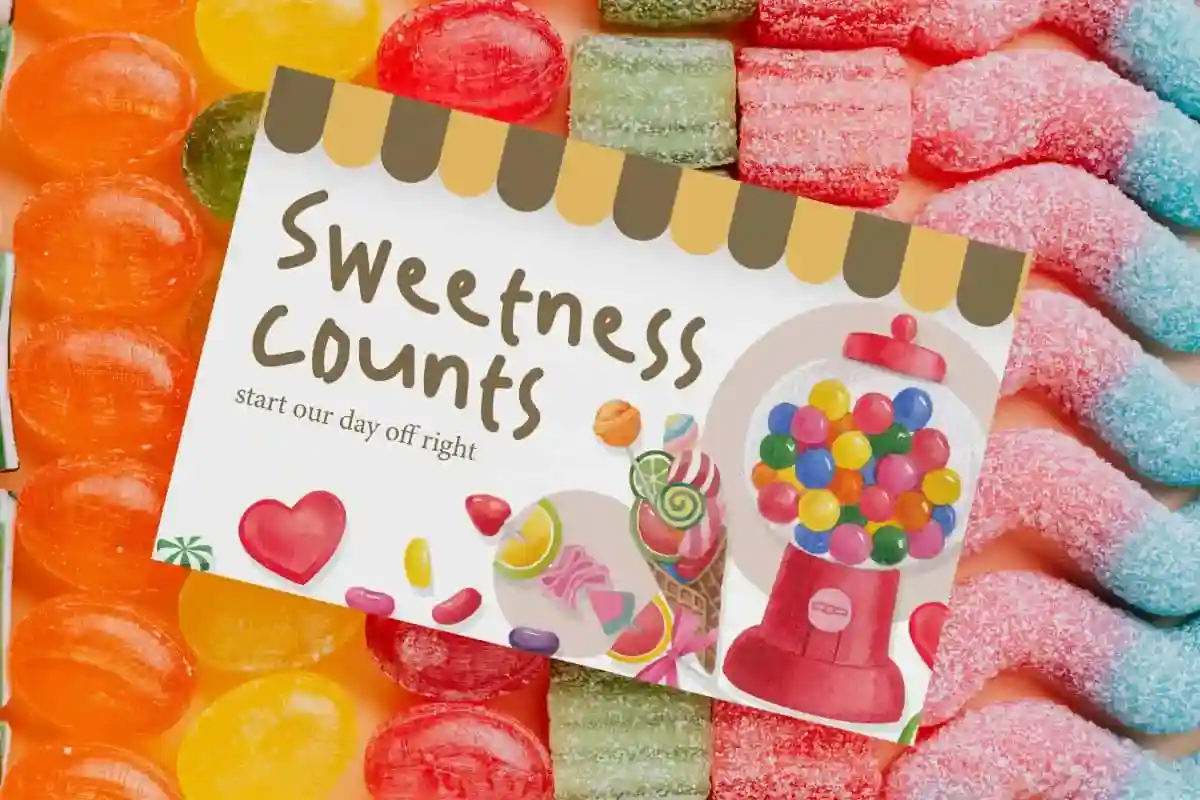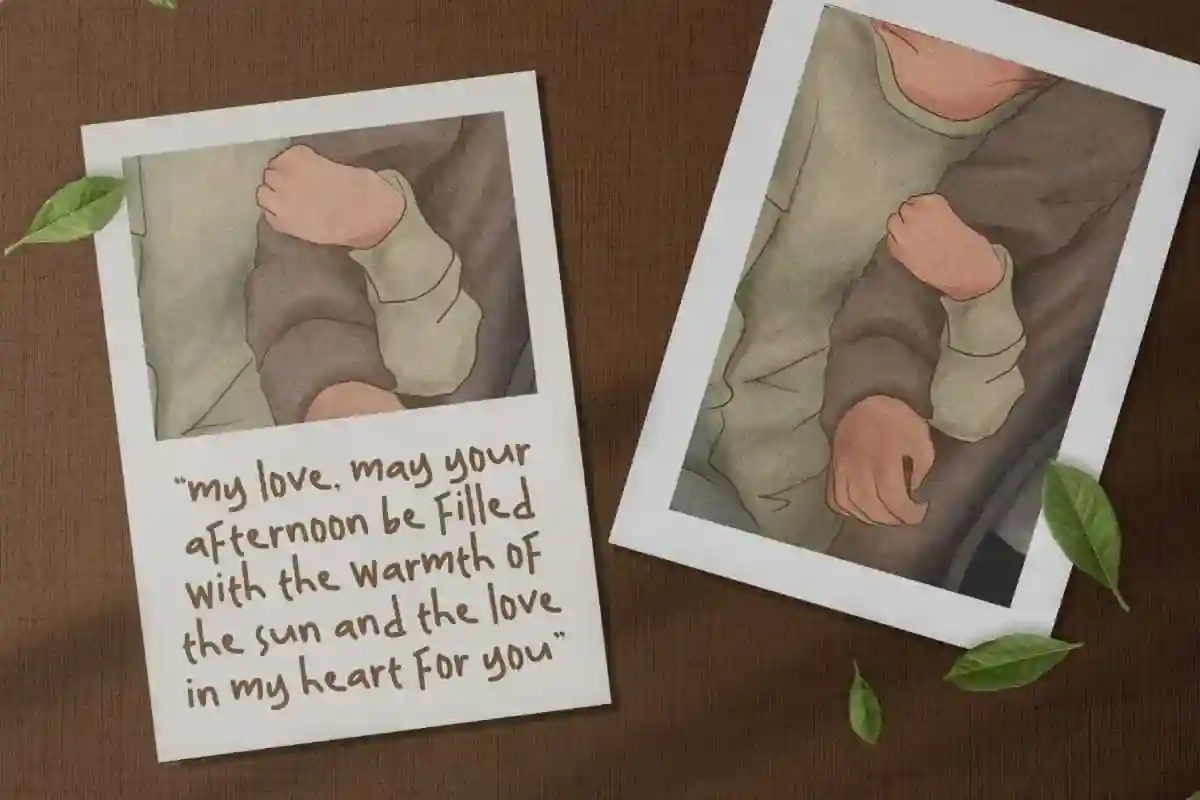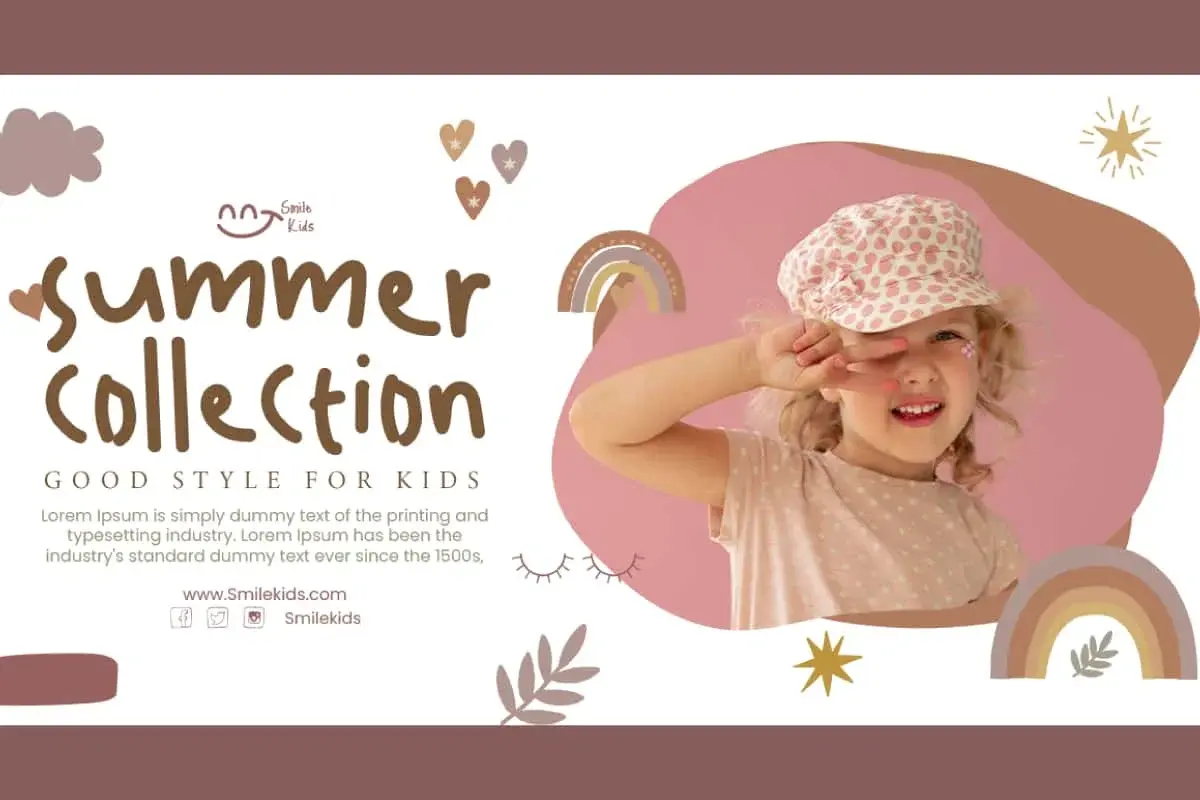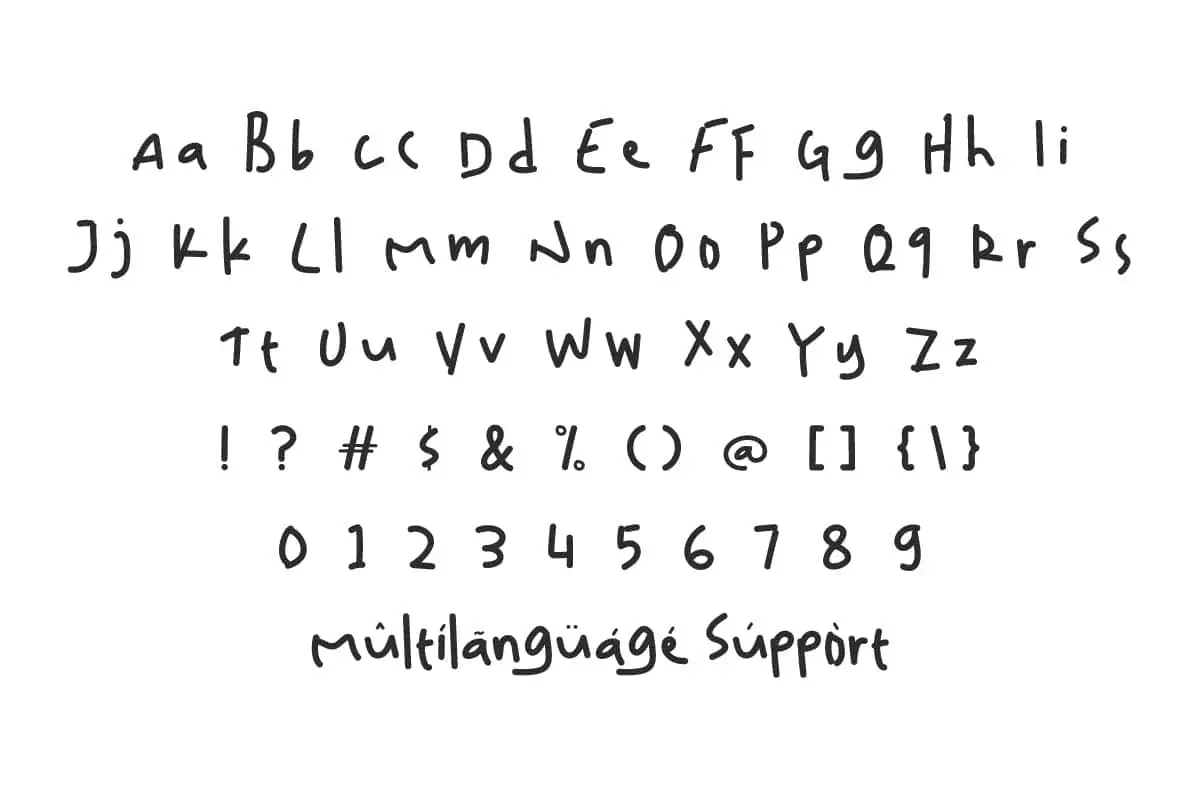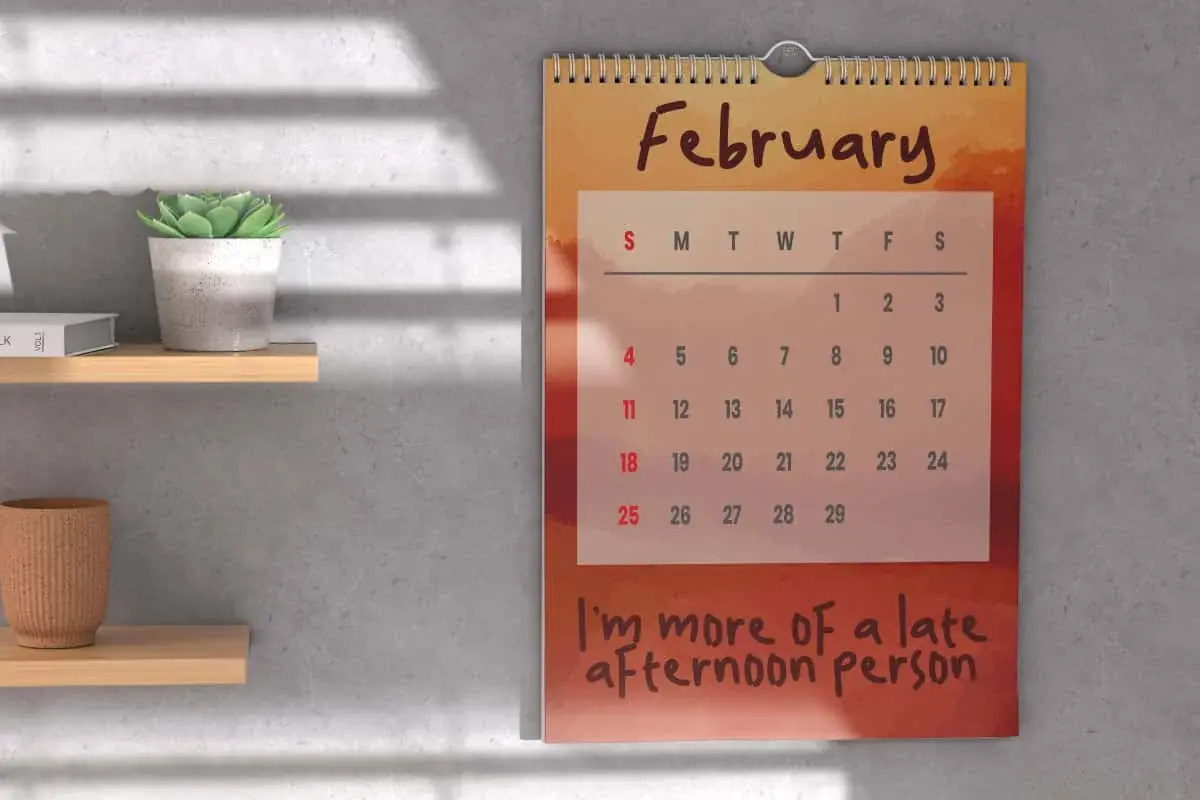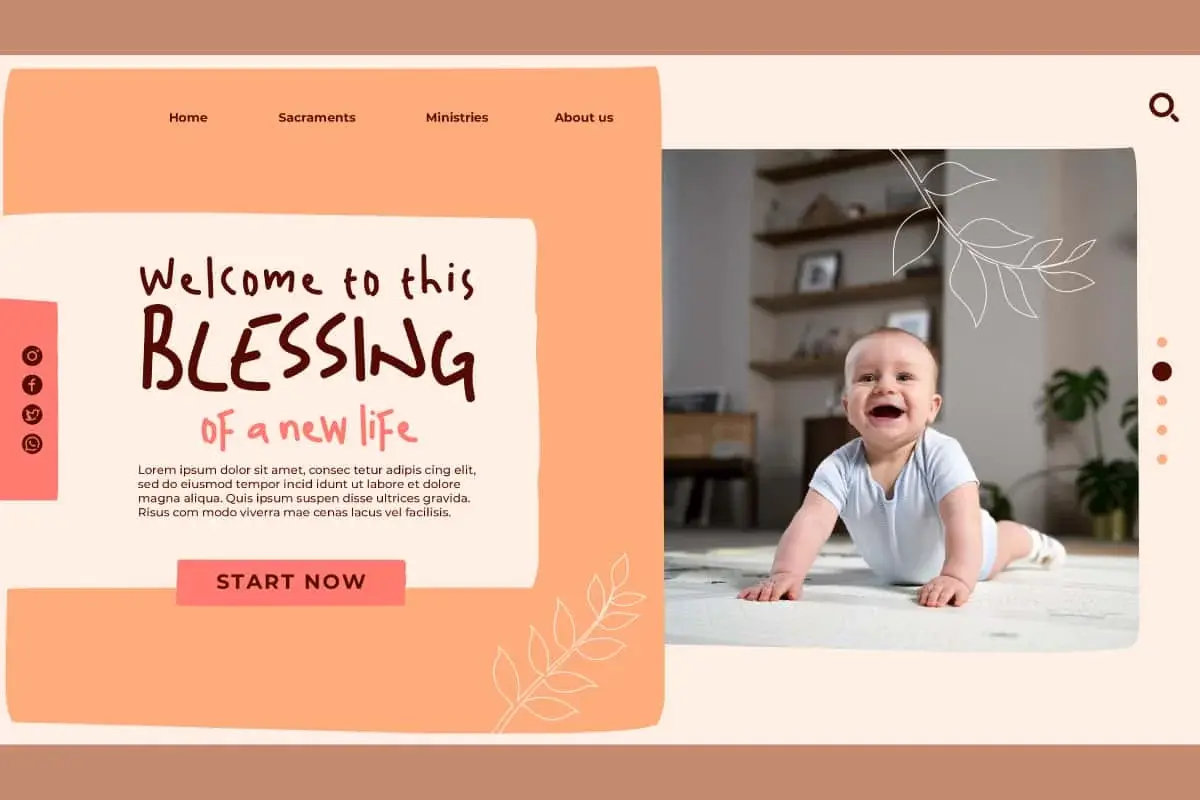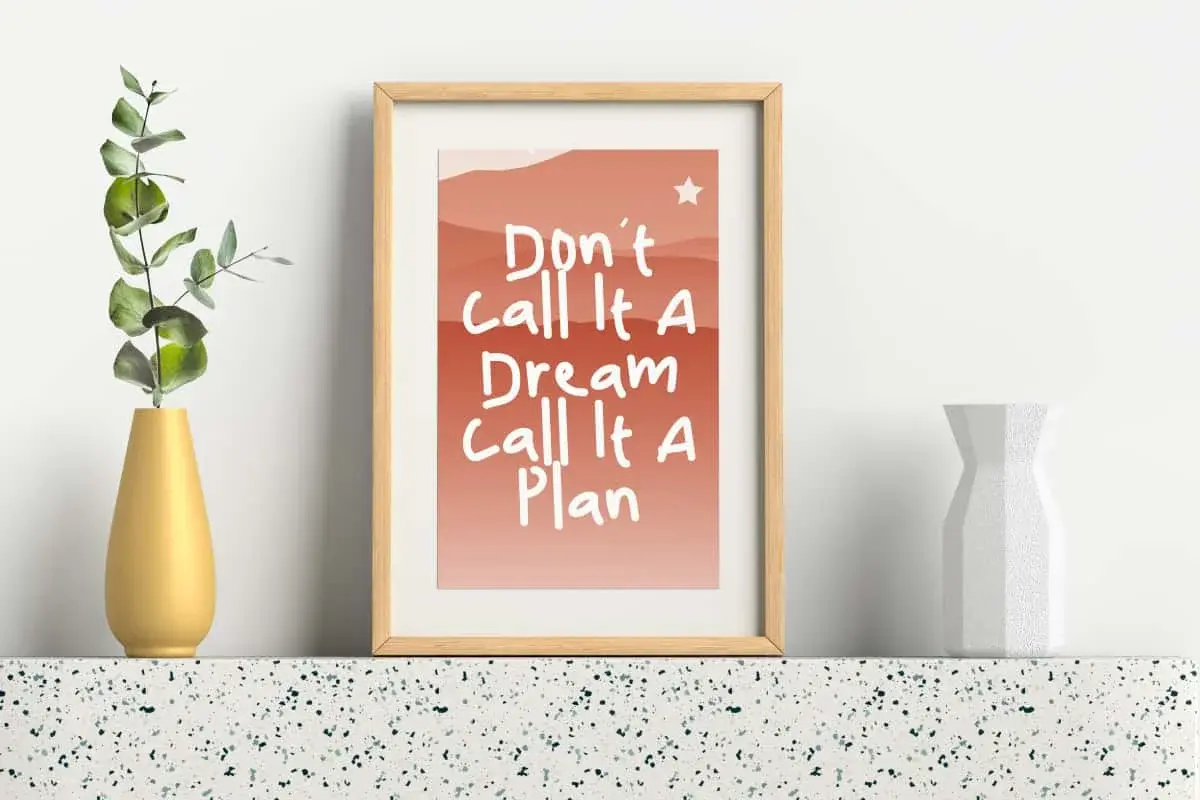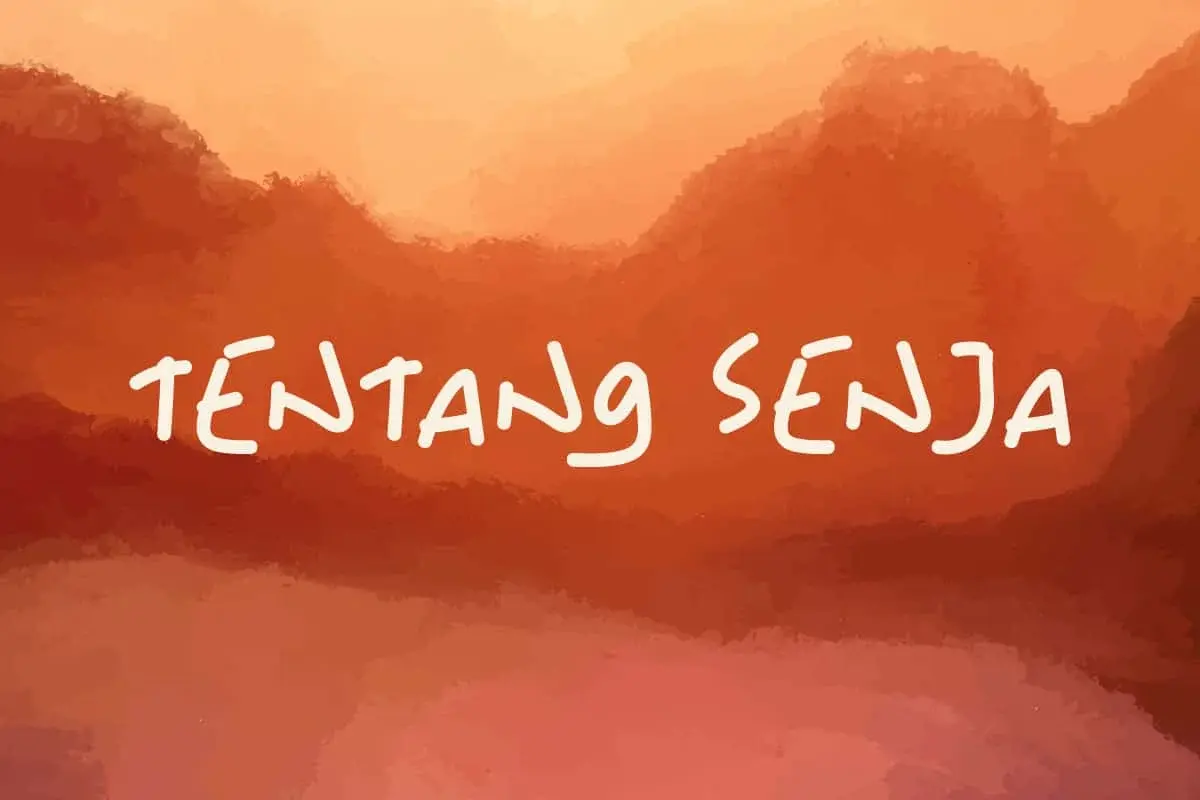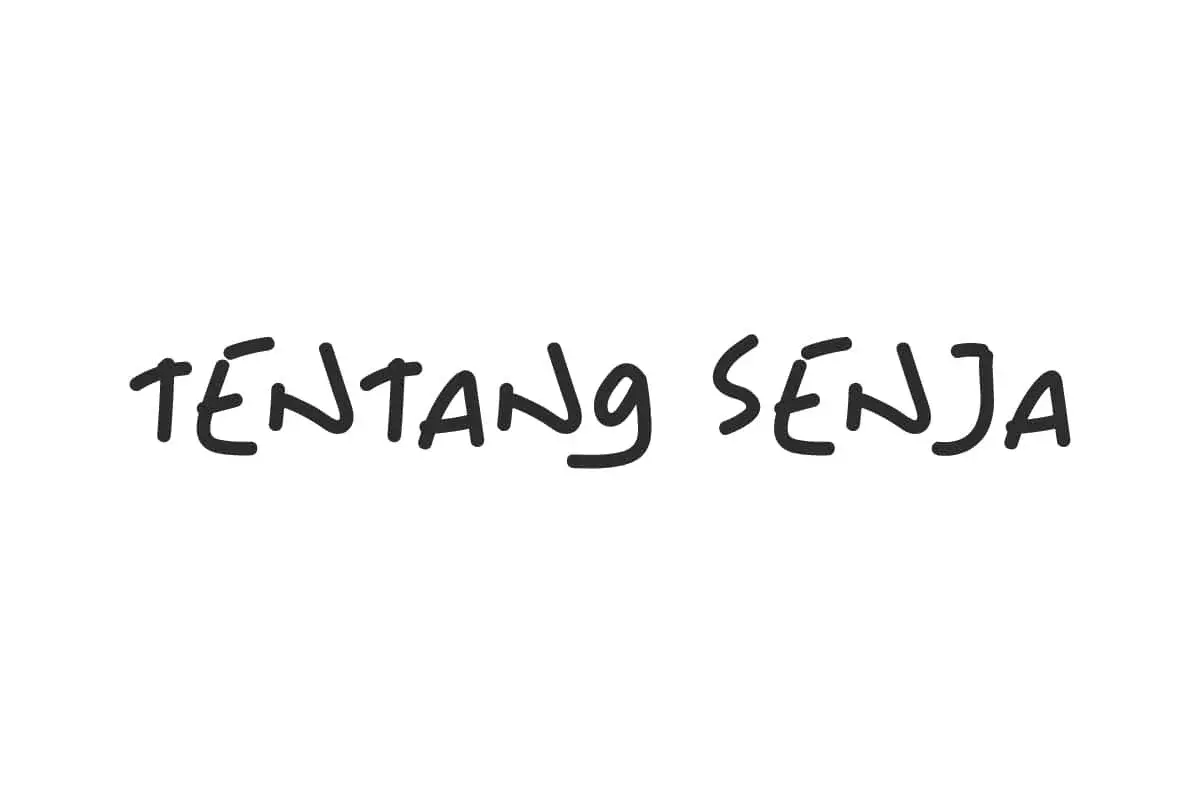
Tentang Senja Font is a charming handwritten font inspired by picture books and cute illustrations. Perfect for creative needs that lean towards a hand-drawn style!
Tentang Senja Font is a cute and sweet handwritten font made with a personal feel and you can use its friendly personality to give your work an authentic and convincing feel. Perfect for album, banners, blogs, brand logo, business card, calendar, covers, greeting cards, invitation, mockup, polaroid film, poster, printed materials, quotes, stationery, template, title, website, and more.
Tentang Senja Font includes a complete set of Basic Uppercase and Lowercase Characters, Numbers, Punctuation and Symbols. It has a cheerful font that gives a charming and not boring impression to each character. Easy to adapt to project goals that require a fun and happy look! Ideal for baby clothing, comic, handicraft, home furnishing, kids fashion, picture books, photography, toys, among other things.